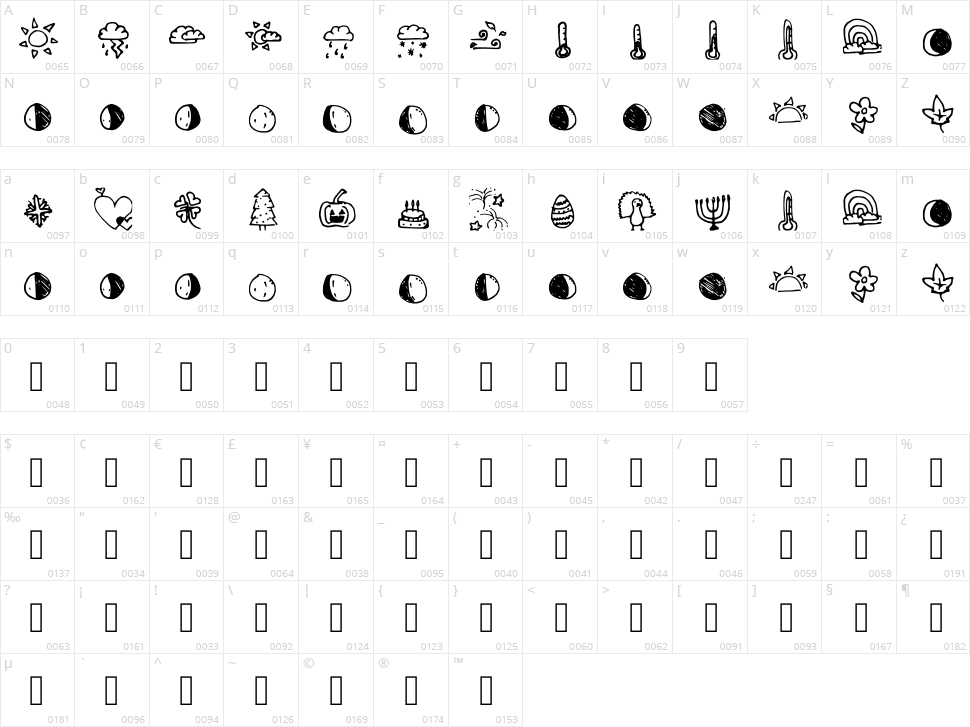
Weather Seasons And Holiday
Just a simple weather seasons moon phase and holiday icon theme. I couldn't find one I liked so I made this myself. Free for personal use.